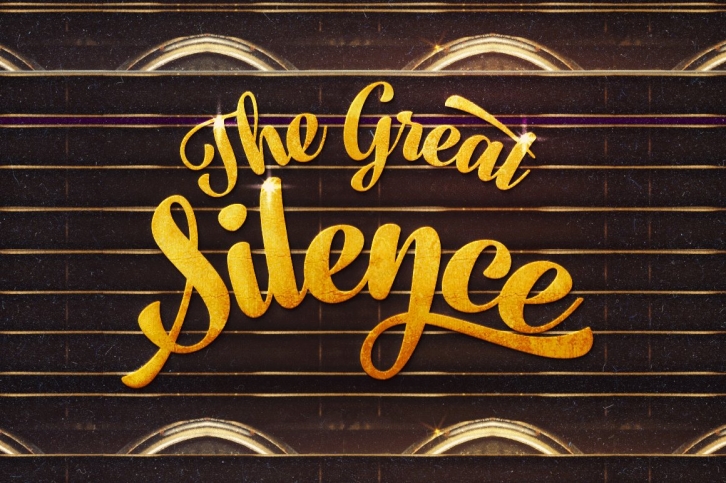
Fragola is a bold and groovy script family with plenty of OpenType features and extra swashes. Combine Swash, Stylistic or Titling Alternates or manually select from even more alternates in any OpenType savvy program to create groovy headlines and spice up your design with Fragola Extras.
Each version of Fragola has more than 700 glyphs! Some characters have over 10 alternates! Fragola Extras has plenty of swashes and badges and two layered Ice Cream -illustrations!